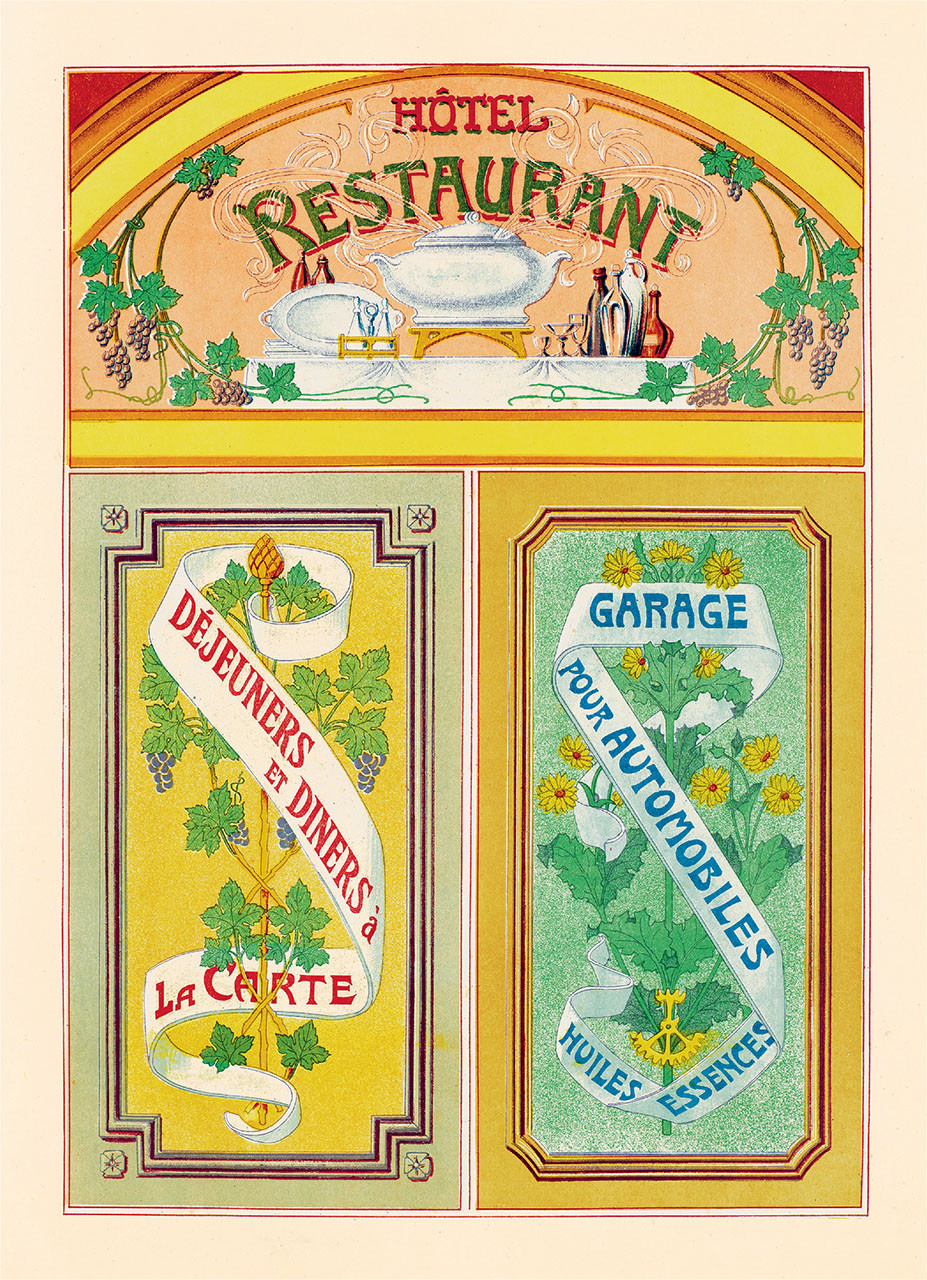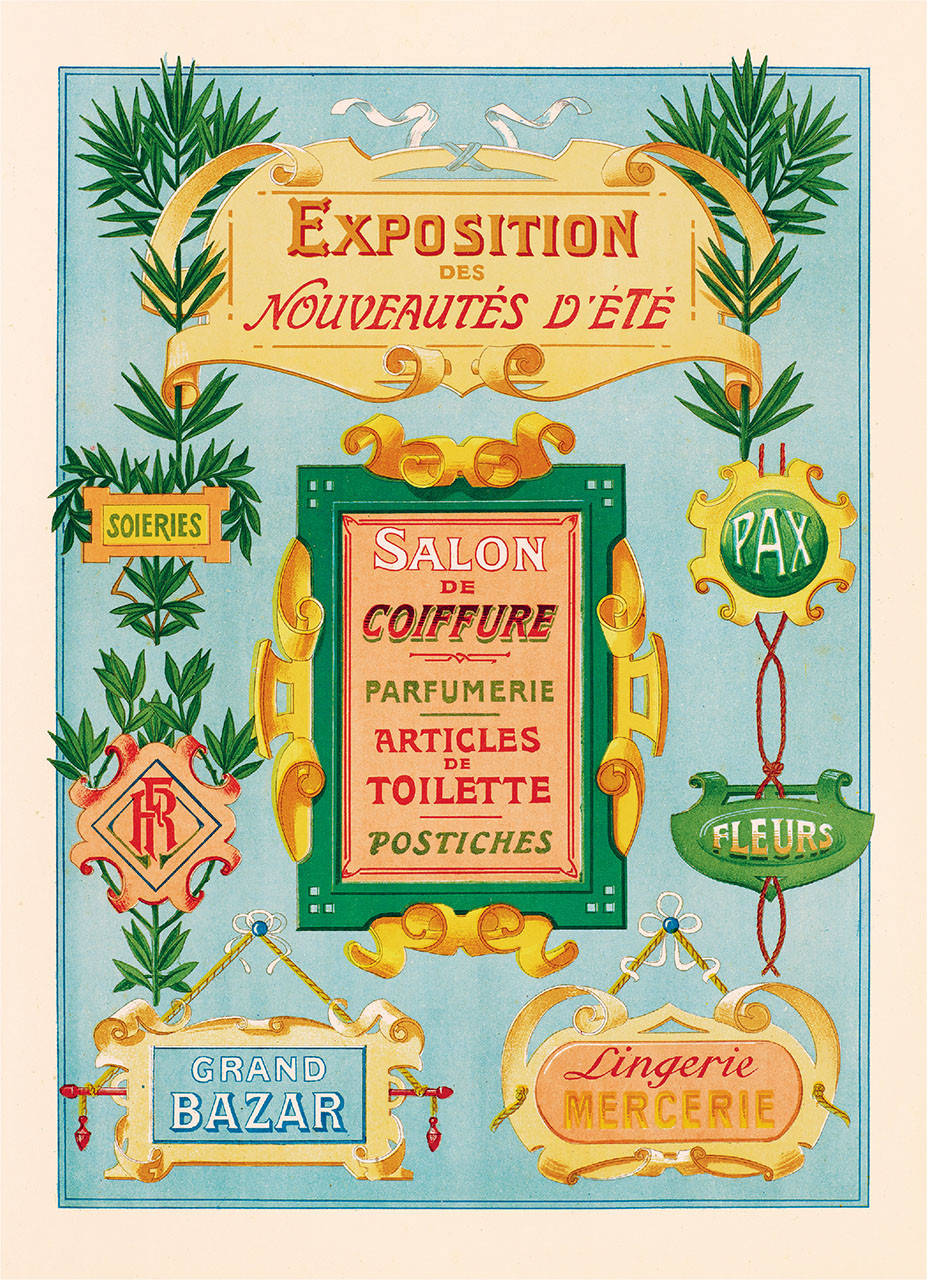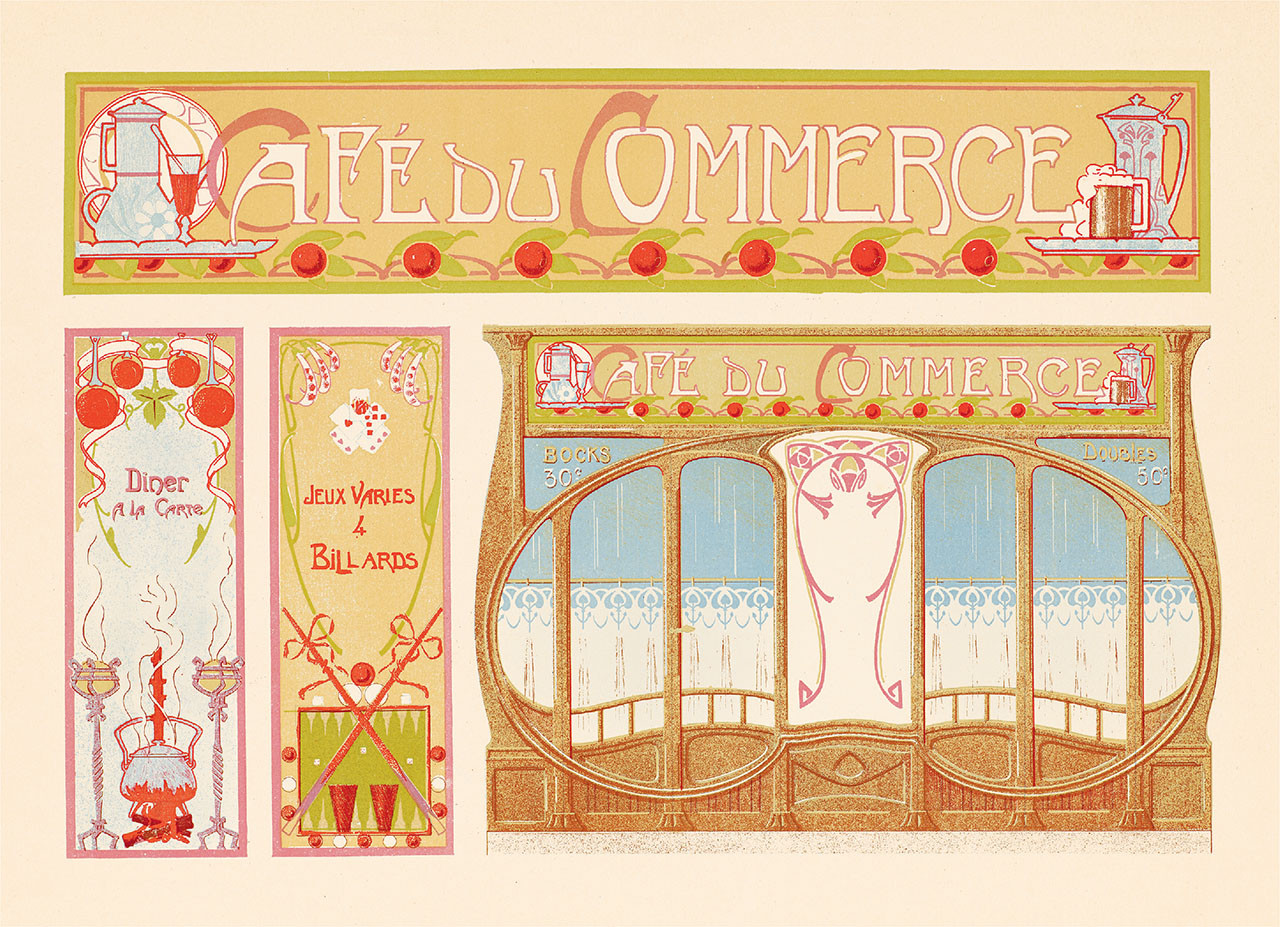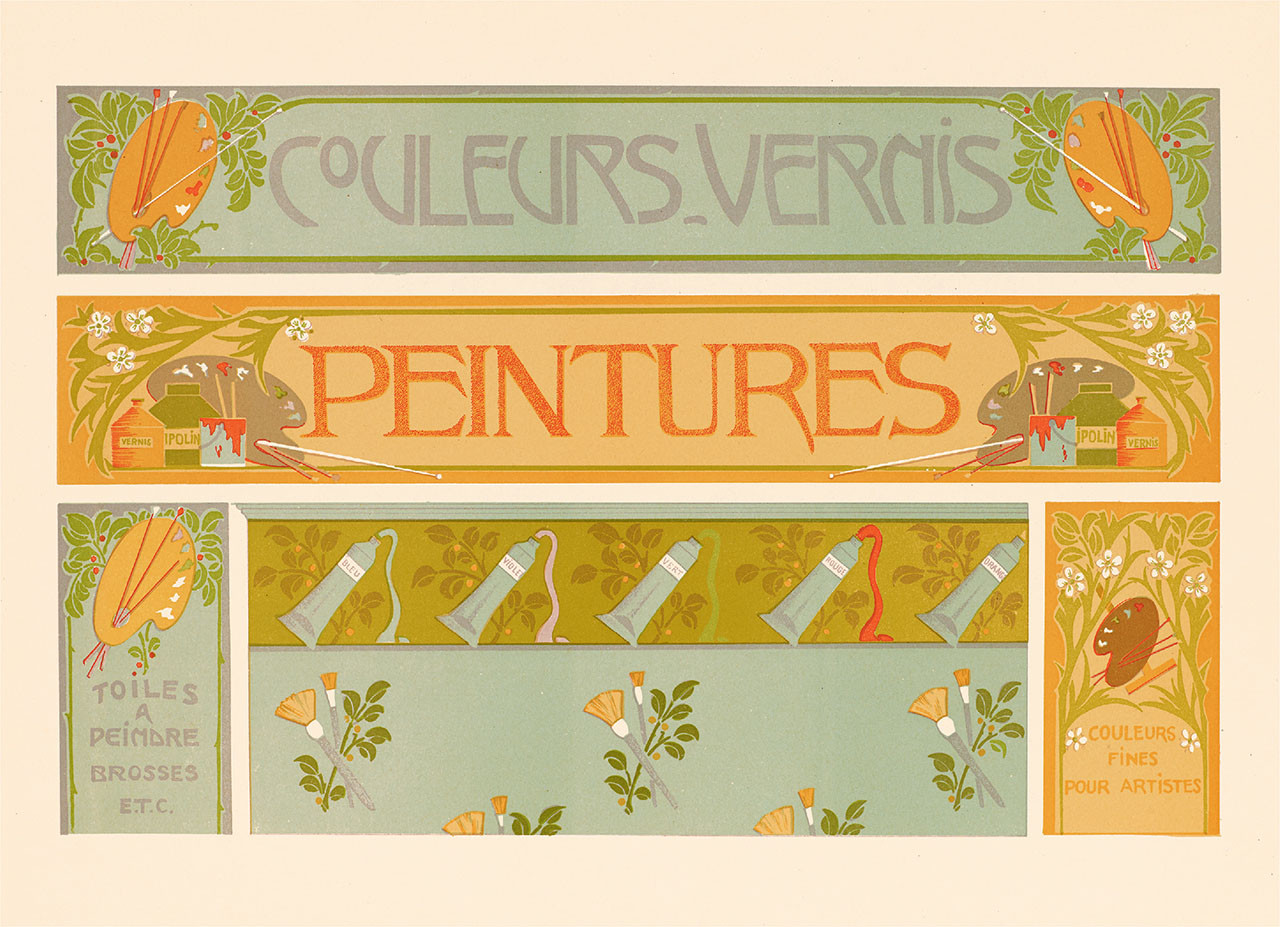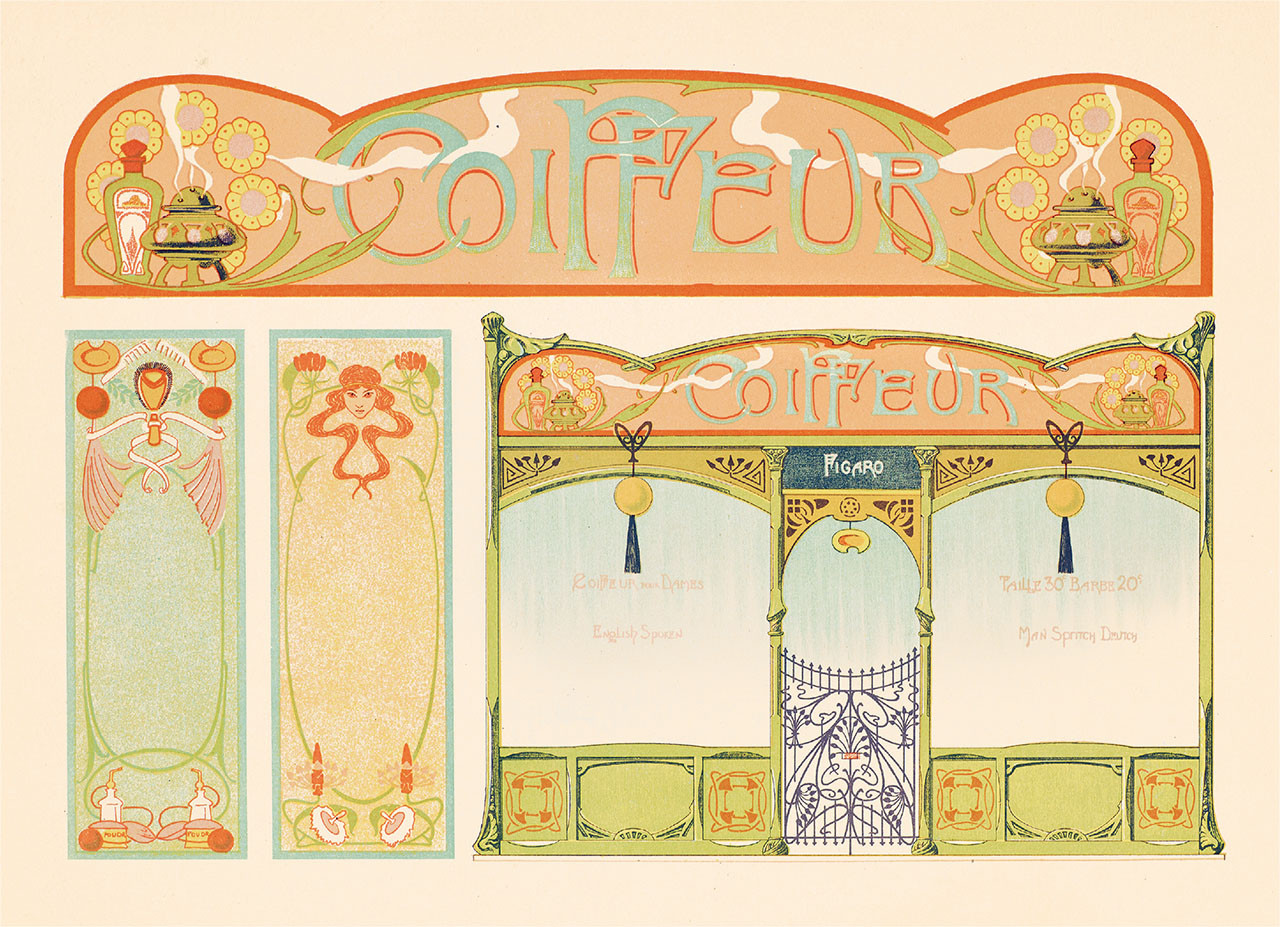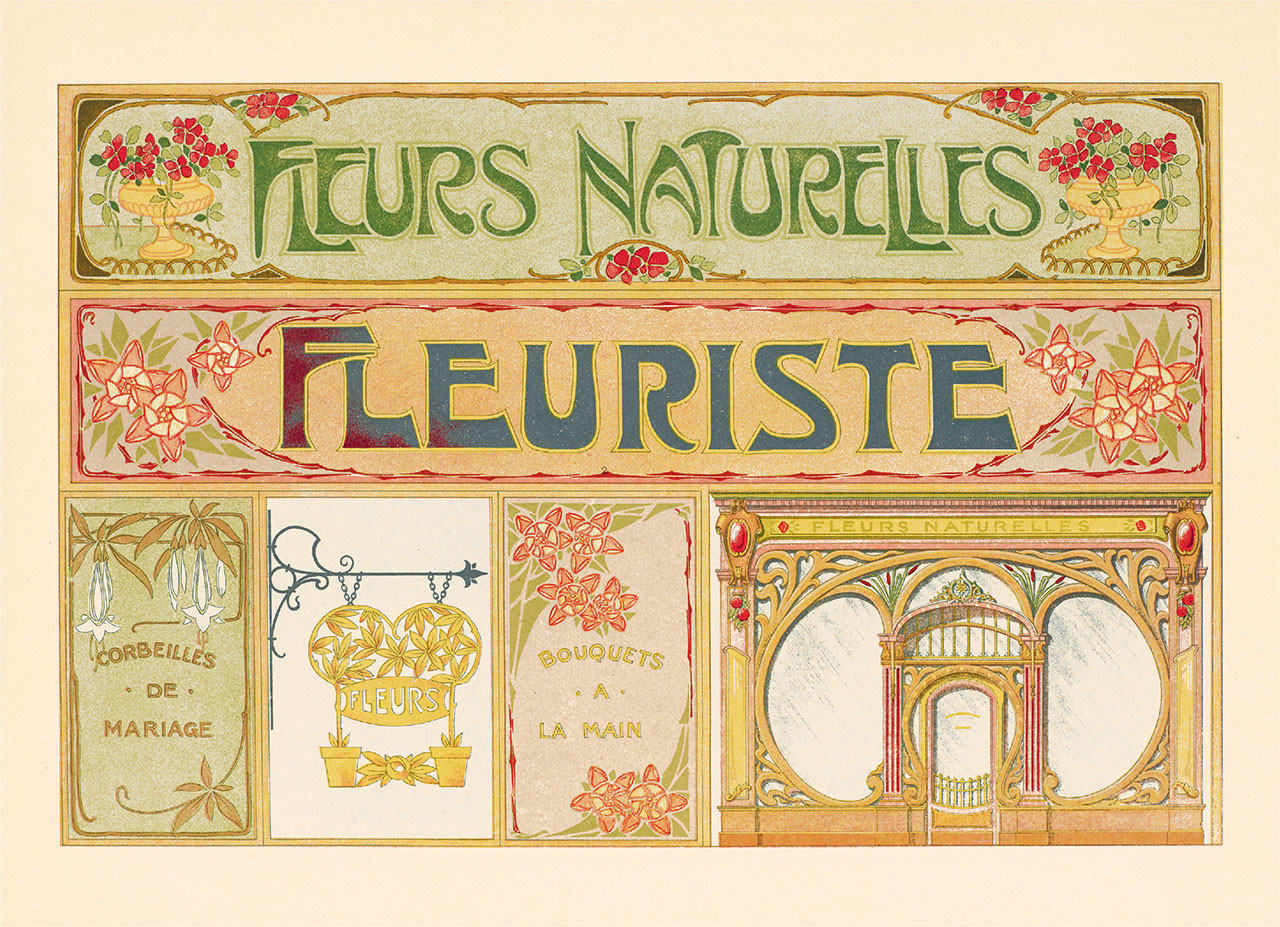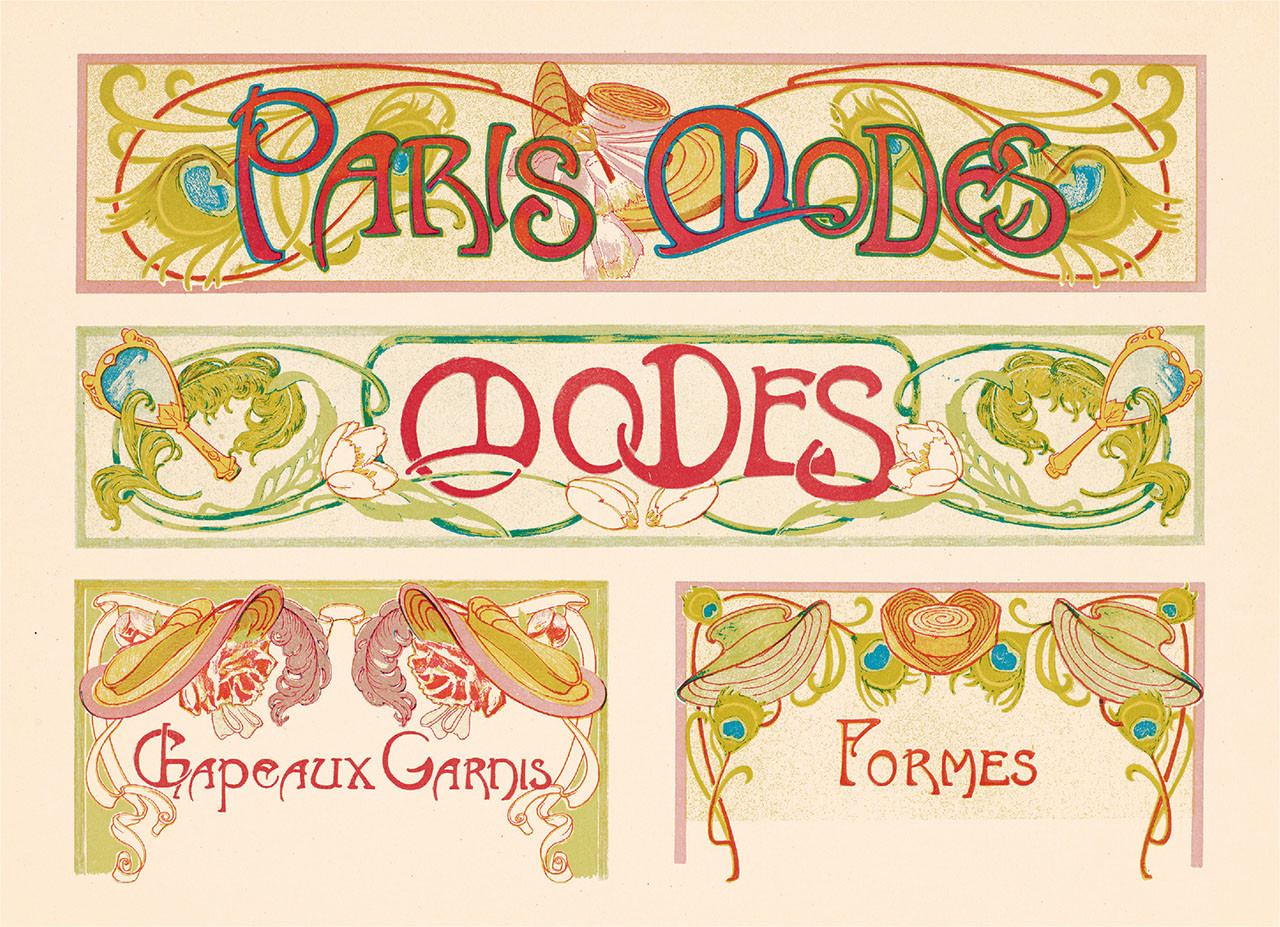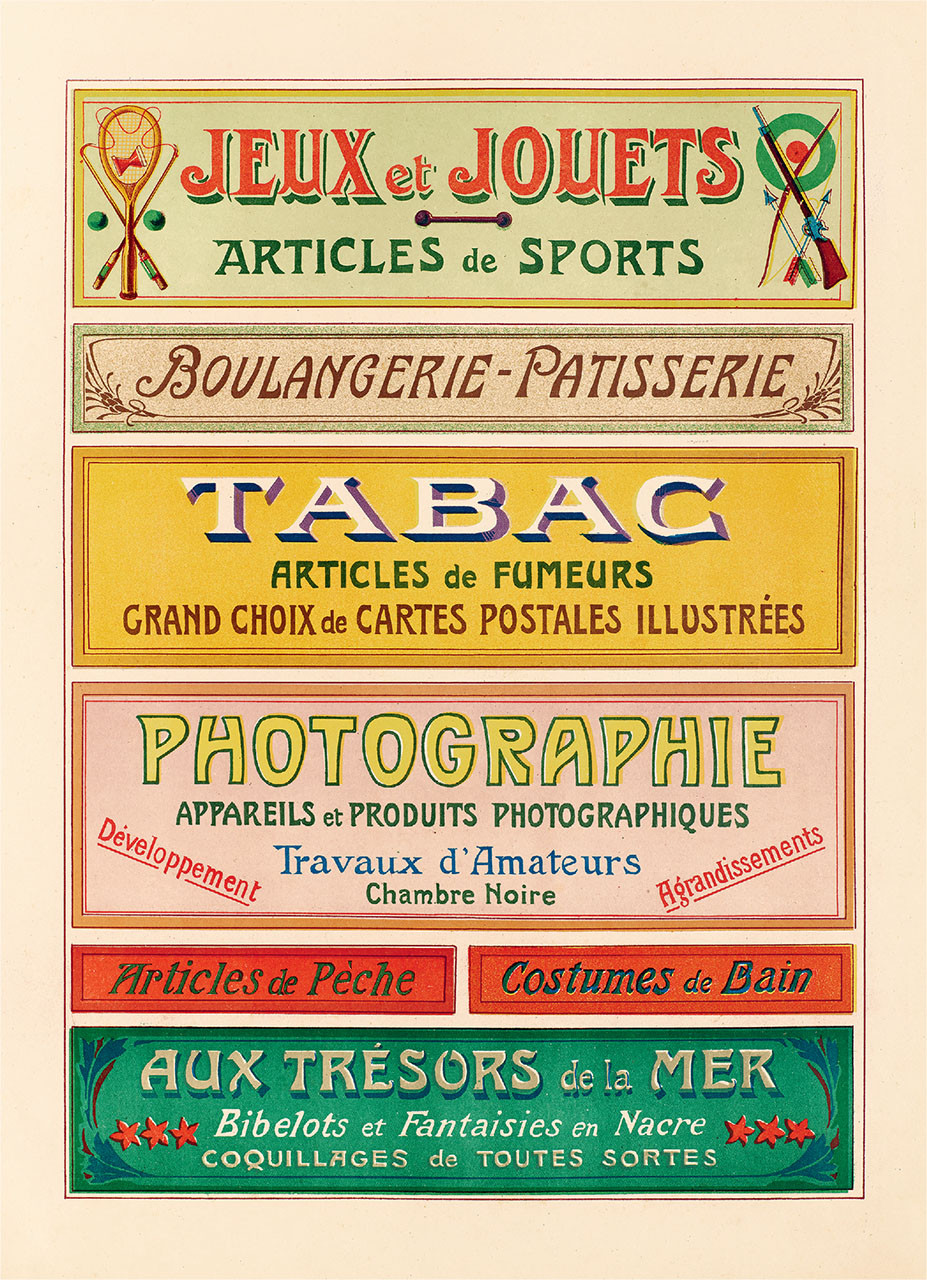
40 postcards featuring 20 picturesque storefront designs that once decorated the grand avenues of Paris
At the turn of the century, skilled artisans reimagined Parisian streets with glamorous signage and storefront displays. With elaborate designs, soft colors, and charming old-world lettering, they helped transform the city into the luminous metropolis of art and culture it is today. This elegant postcard set revives original inspiration from the painters’ treasured sourcebooks—and whisks you away to Belle Époque Paris.
Presented in a beautiful keepsake box, Boutiques Magnifiques features artwork from three of the gorgeous chromolithographic albums included in Letterform Archive Books’ Lettres Décoratives: A Century of French Sign Painters’ Alphabets. Inspired by a close study of the artists’ original designs, the whimsical hand lettering and ornamental flourishes of contemporary illustrator Laura Serra complement a delightful selection of works by Marc Bordère, Henry Guédy, E. Mulier, and others.